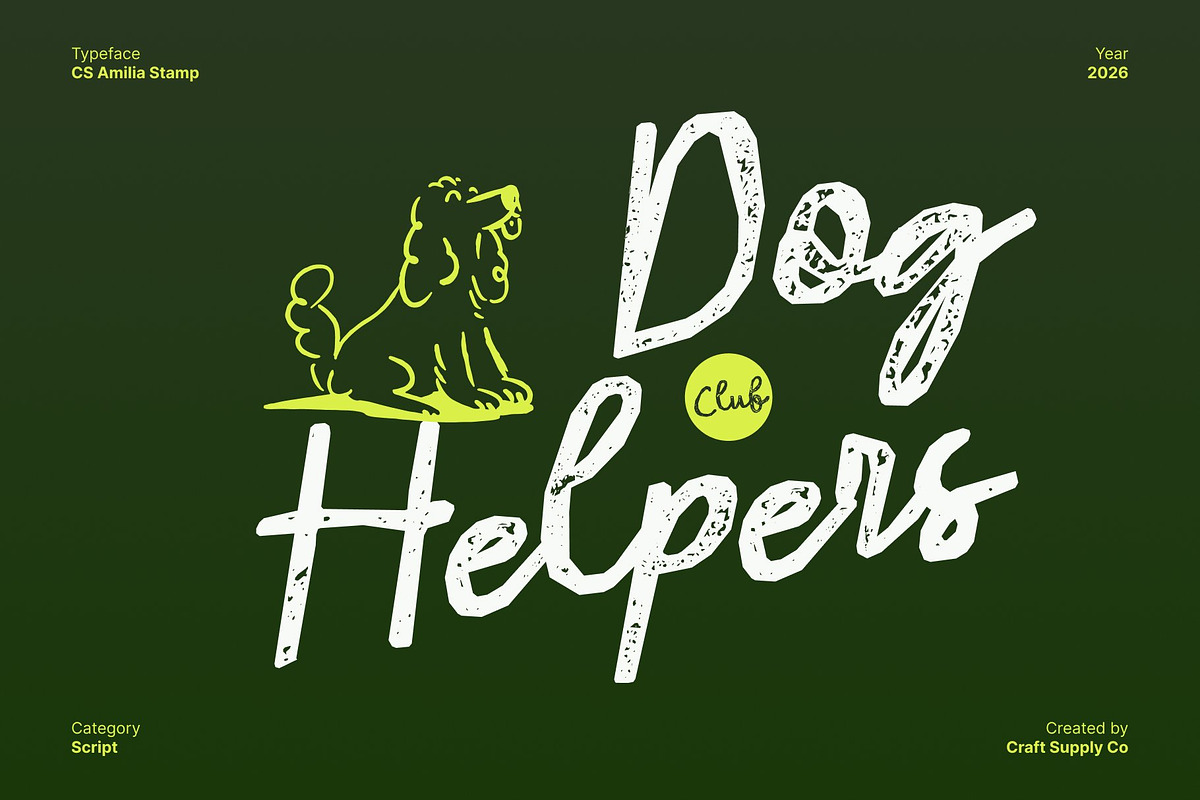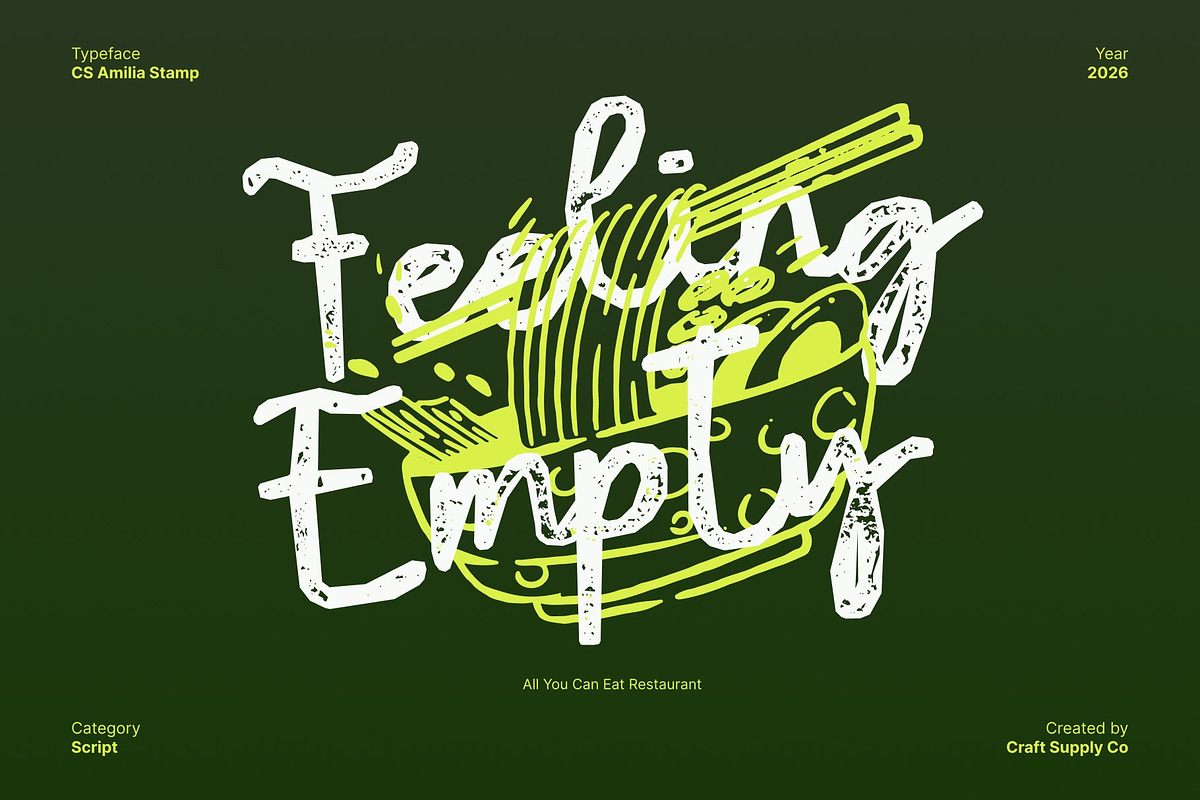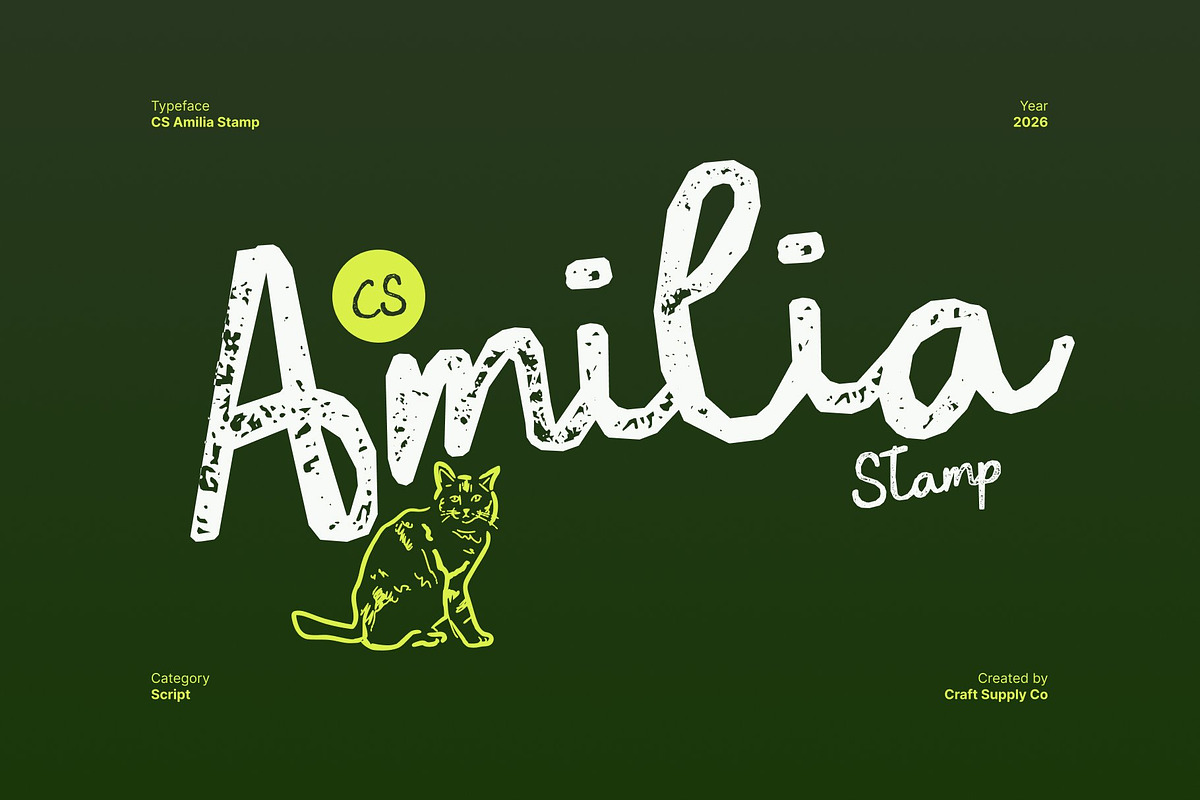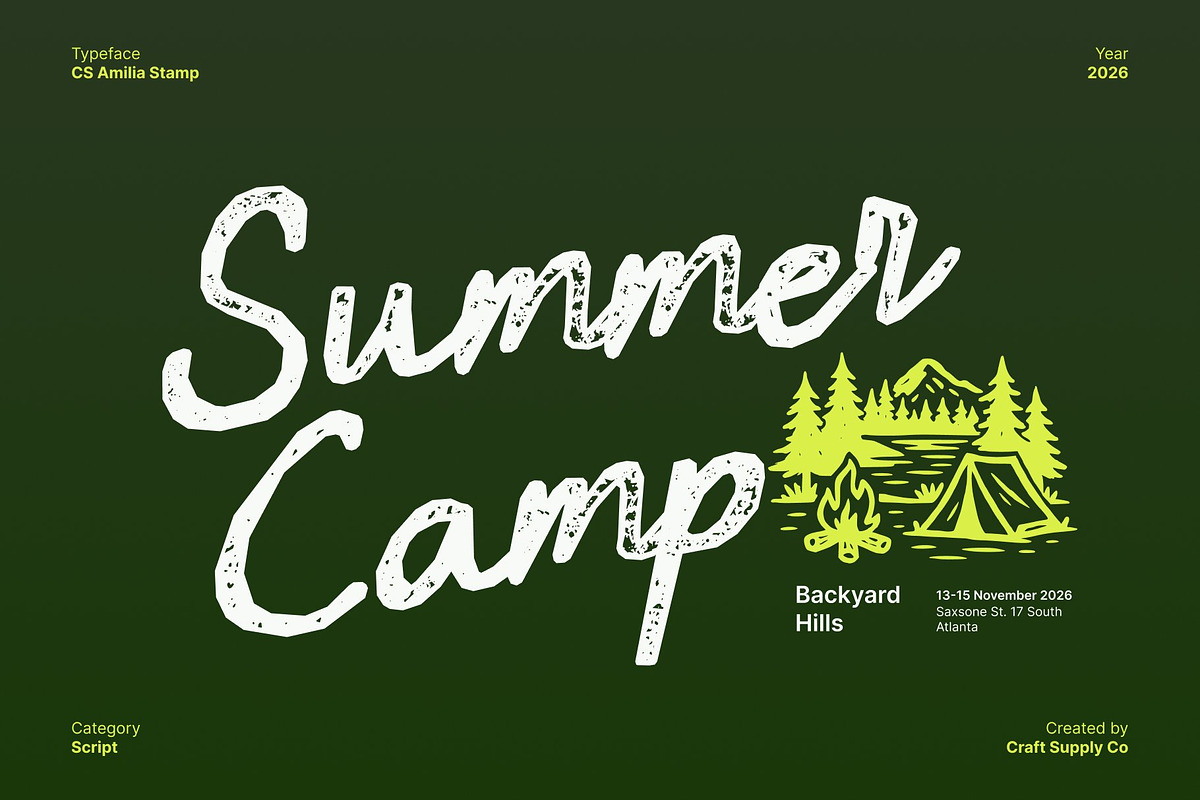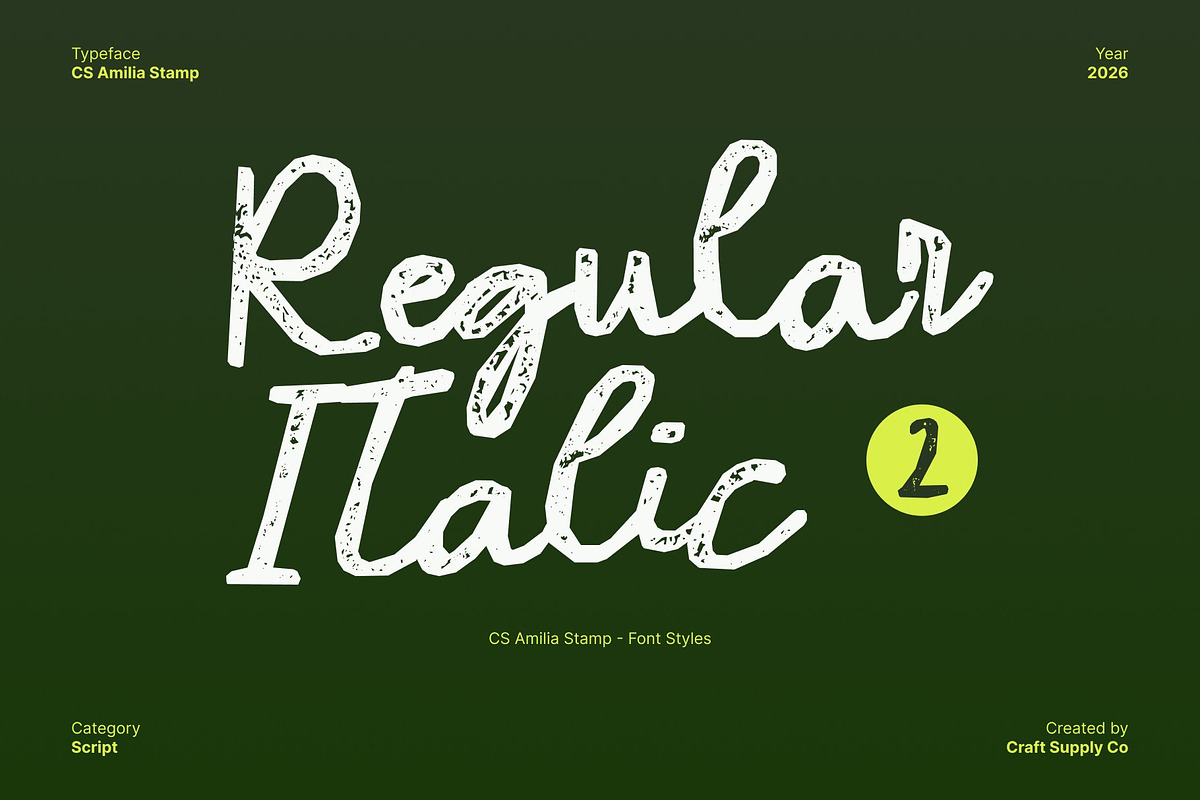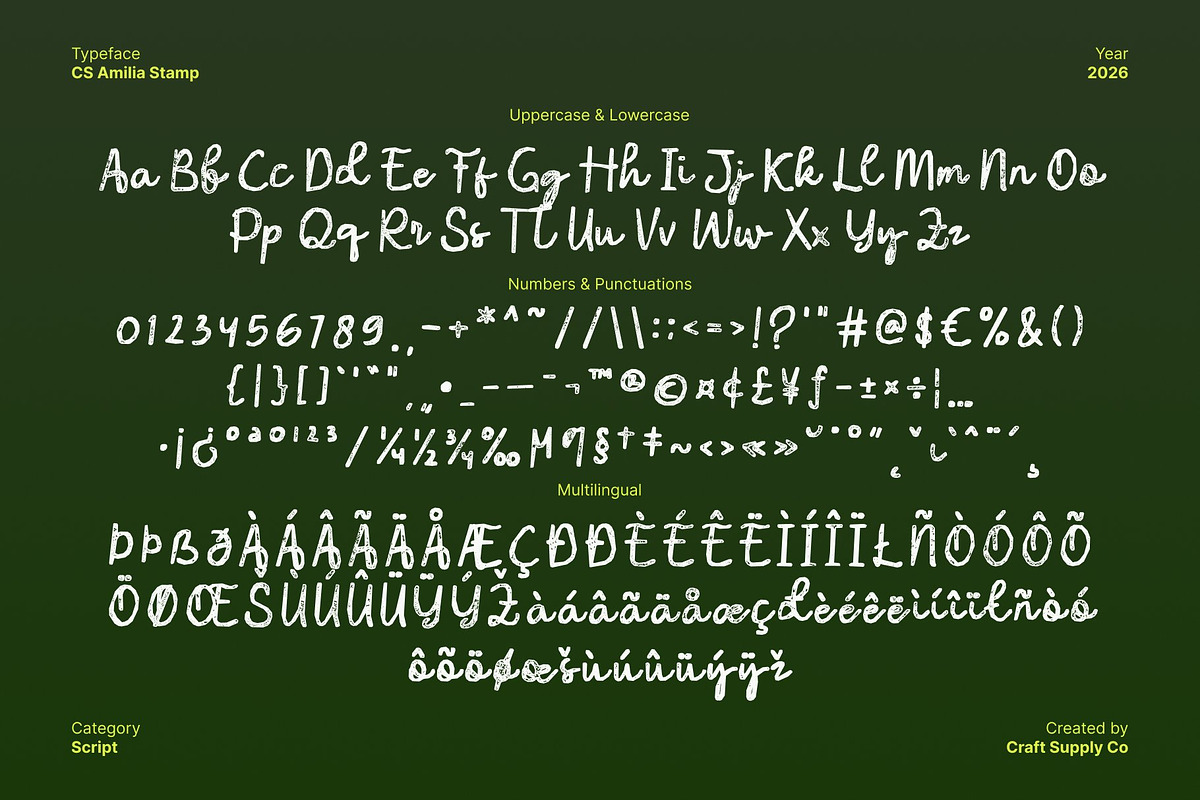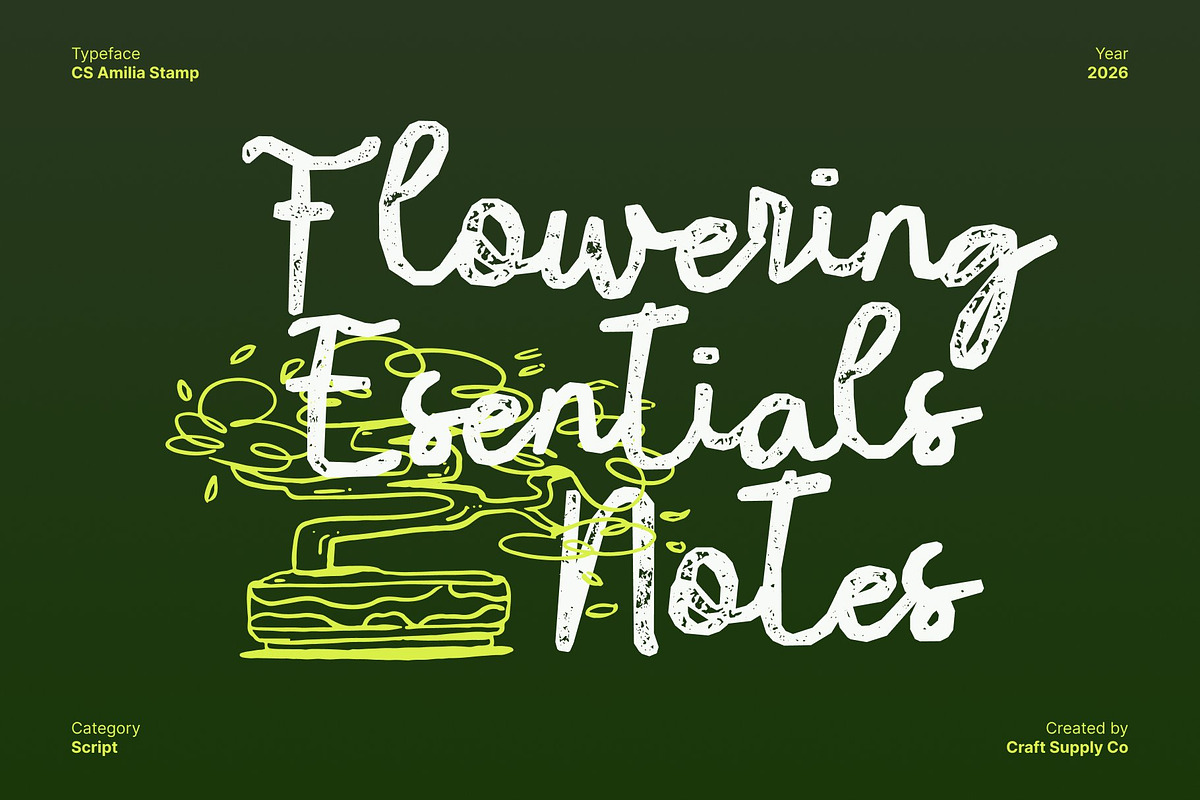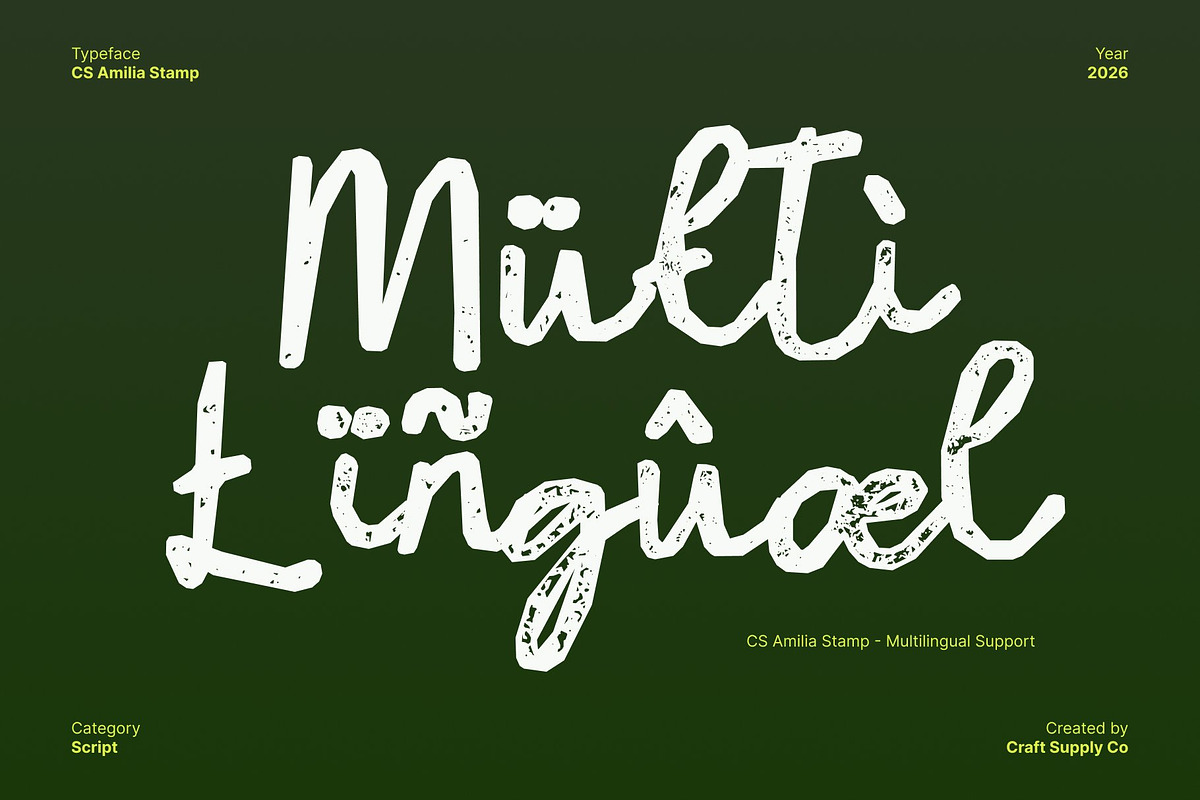
CS Amilia Stamp
CS Amilia Stamp – Artistic Handwritten Script with Elegant Flourishes
Expressive Handwritten Strokes with Artistic Warmth This is an artistic handwritten script font designed with fluid strokes and expressive curves that convey beauty, warmth, and personality. Each letter flows naturally, capturing the charm of authentic handwriting while maintaining a graceful and stylish presence. The organic movement of the strokes gives the font a handcrafted soul that feels intimate and visually engaging.
Stamp Texture for Vintage and Artistic Character The stamped texture adds a subtle distressed finish that enhances the font’s expressive nature. This texture introduces a tactile, slightly worn appearance reminiscent of traditional ink stamping, giving the script a vintage character and artistic depth. It softens the smooth elegance of the handwriting, resulting in a balanced blend of refinement and handcrafted imperfection.
Elegant Swashes and Flourishes with Timeless Appeal Refined swashes and decorative flourishes elevate the font’s elegance, making each word feel intentional and expressive. These graceful details add sophistication and visual drama, while the stamp effect grounds the design with authenticity and character. Together, they create a script that feels both decorative and emotionally rich.
Perfect for Branding and Signature-Style Logos This font excels in branding projects that require a personal, elegant, and artistic voice. Its handwritten style paired with textured depth gives logos, taglines, and brand signatures a refined yet approachable identity. Ideal for beauty brands, boutiques, fashion labels, and lifestyle businesses that value authenticity.